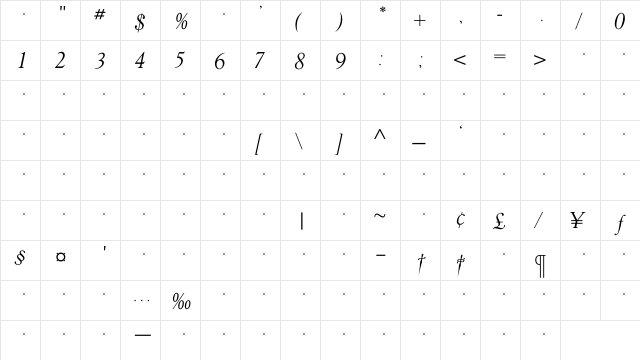
GoudY38LightItalicTab Regular Font Preview
Design Context for GoudY38LightItalicTab Typeface
GoudY38LightItalicTab takes a measured approach to typography — its balanced proportions and neutral character make it a reliable workhorse for both digital and print work. The dynamic lean of this cut emphasises speed and emphasis in any layout. The delicate stroke weight brings airiness and refinement to layouts.
Pro Tip: Use GoudY38LightItalicTab for emphasis, pull quotes, and subheadings where its slanted energy can add rhythm to the layout.